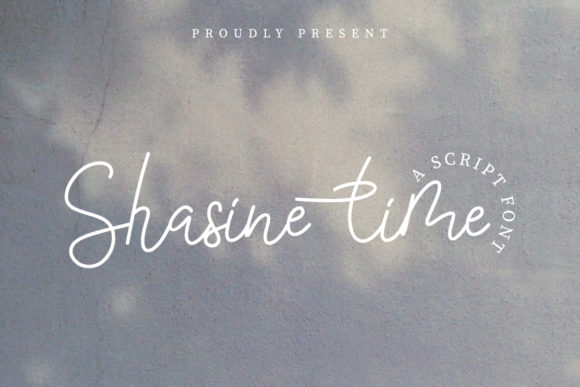
Embark on a culinary journey with Shasine Time Font, the ultimate script font for your restaurant menu. Crafted with meticulous care by EdricStudio, this elegant and charming font exudes a warm and inviting ambiance that will tantalize your customers' taste buds.
Step into a world of gastronomic delight as Shasine Time Font transforms your menu into an exquisite work of art. Its graceful curves and delicate swashes dance across the page, creating an atmosphere of sophistication and allure. Each letter is a masterpiece, lovingly crafted to capture the essence of fine dining.
With Shasine Time Font, your menu becomes more than just a list of dishes; it becomes an immersive experience that engages the senses and ignites the imagination. Its timeless beauty will leave a lasting impression on your customers, ensuring they remember their dining experience long after they've left your establishment.
Feast your eyes on the versatility of Shasine Time Font. Its ability to adapt to any culinary concept is truly remarkable. Whether you're serving classic French cuisine, rustic Italian fare, or mouthwatering Asian delicacies, this font will seamlessly complement your establishment's unique style.
Indulge in the endless possibilities that await you with Shasine Time Font. Create breathtaking wedding invitations that capture the magic of your special day. Design stunning stationary art that leaves a lasting impression on your loved ones. Craft captivating social media posts that entice your followers and leave them craving more.
Shasine Time Font is more than just a font; it's a culinary masterpiece that will elevate your restaurant menu to new heights. Its exquisite design and versatility will transform your menu into an unforgettable experience that will delight your customers and leave them longing for more.